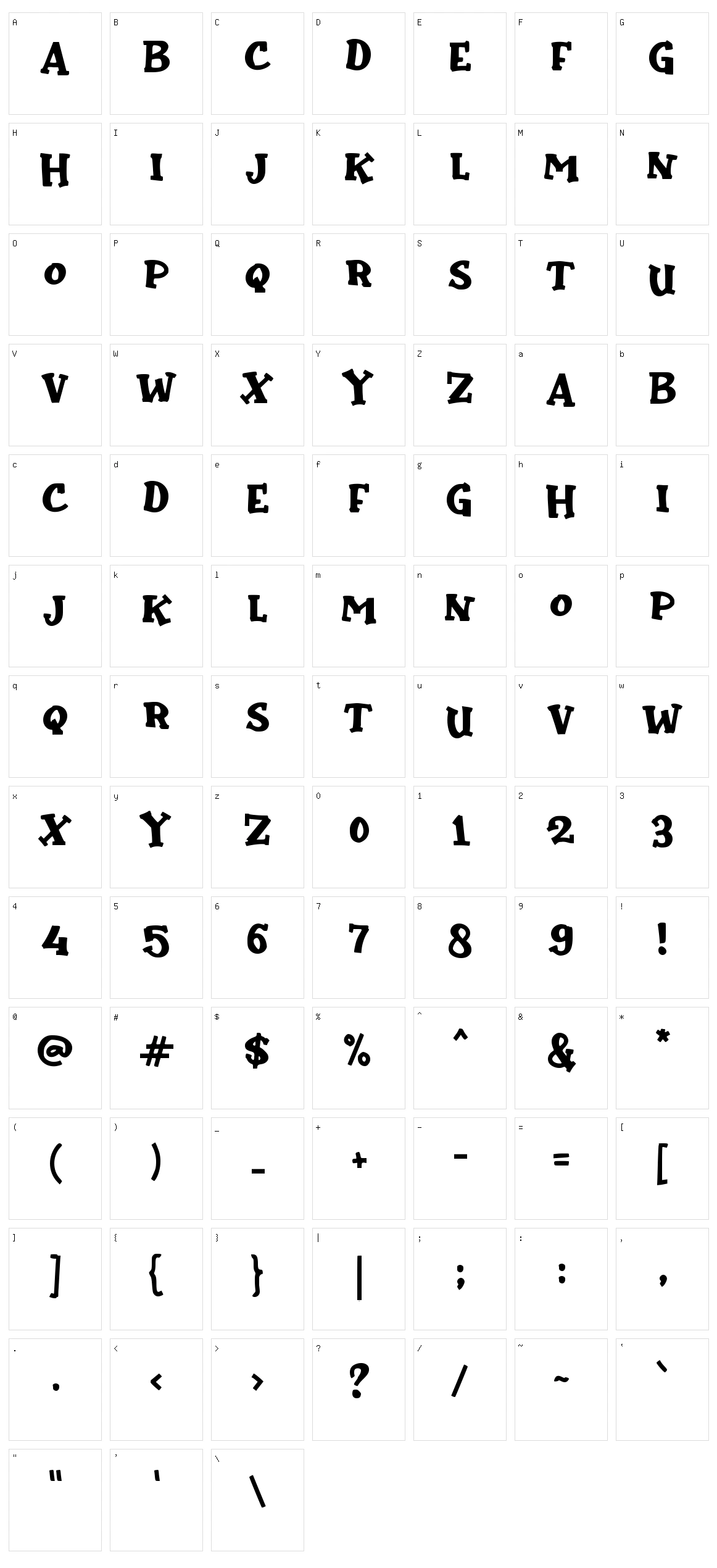
The free font c Cari Pakpol is carefully designed by wep, showcasing a thoughtful balance of creativity and usability and falls under the Cartoon font style. When you download the ZIP file, it contains only 12.06 KB of font files, making it lightweight and quick to download. Please review the license details below to understand permitted usage and distribution rights. If license information is not available, we recommend using this font for personal projects only or contacting the author directly for commercial usage permissions.